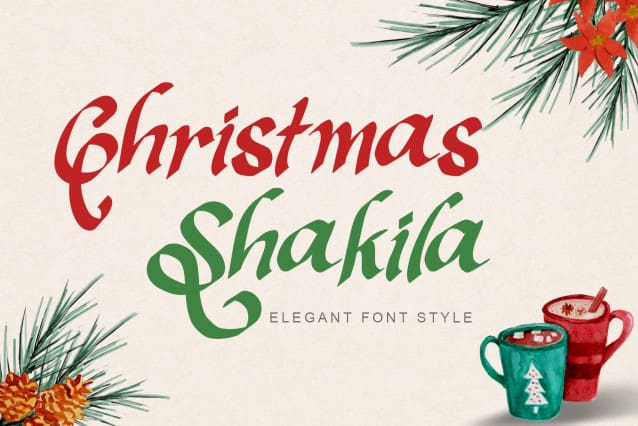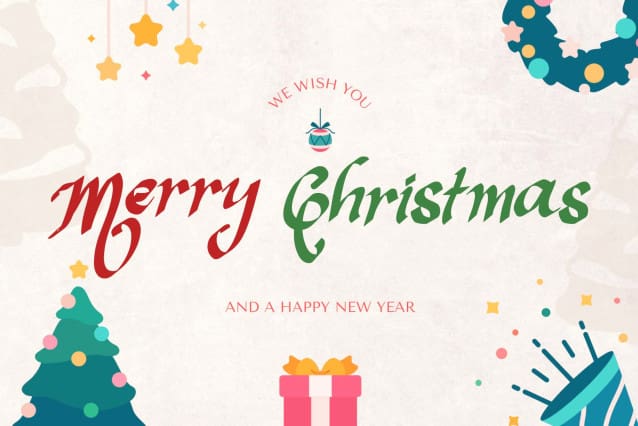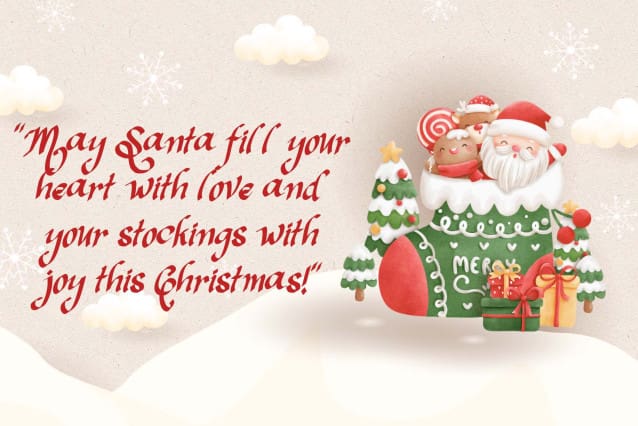
Christmas Shakila Font
Christmas Shakila Font is a beautiful and elegant handwritten font. This font is equipped with uppercase, lowercase, numerals, punctuation, and multilingual support. Very suitable for Christmas, winter, Valentine’s Day, weddings, engagements, photography, stickers, banners, branding, and others.